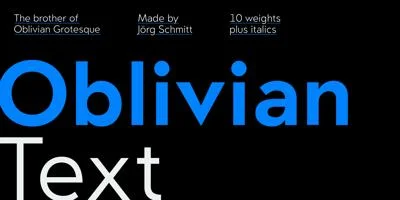
Oblivian Text Font
Oblivian Text Font – Futuristic Tech Typeface with Sci-Fi Edge
Step into the future with the Oblivian Text Font, a cutting-edge geometric sans-serif that blends sleek minimalism with sci-fi aesthetics. Perfect for tech brands, gaming interfaces, and futuristic designs, this font delivers a clean, modern look with an otherworldly vibe.
Why Choose Oblivian Text Font?
The Oblivian Text Font stands out with its:
Futuristic Geometric Design – Sharp angles and smooth curves
High-Tech Appeal – Ideal for digital and cyberpunk themes
Exceptional Readability – Works in both headlines and UI text
Sci-fi game interfaces
Cyberpunk-inspired graphics
Futuristic product packaging
Digital agency websites
Key Features
Multiple Weights – From light to bold for versatile use
Optimized for Screens – Crisp rendering on digital displays
Extended Character Set – Supports multiple languages
Design Applications
Sleek tech logos and branding
Sci-fi movie posters
Gaming UI and HUD elements
Futuristic social media graphics
Pro Tip: Pair with neon glows, grid overlays, or holographic effects for a cyberpunk aesthetic.
Designer Note: Looks stunning in monochrome or vibrant neon color schemes.